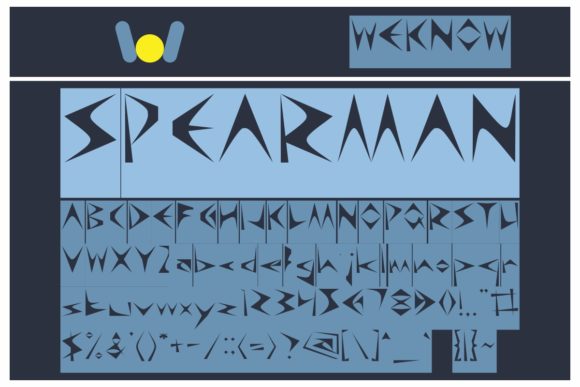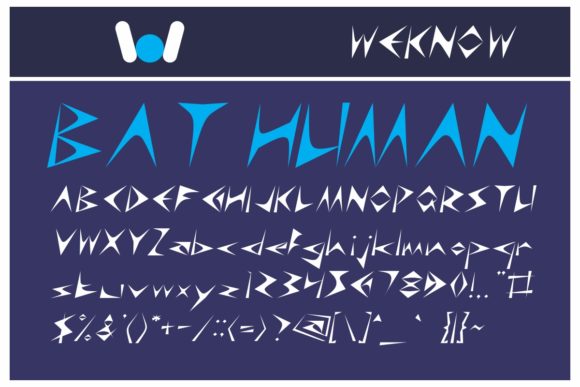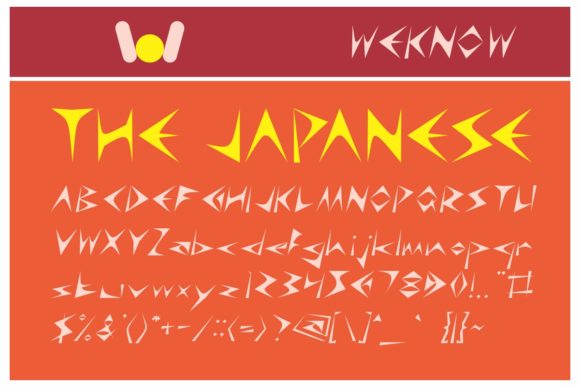
Unleash Your Creativity with Digital Ninja Font
In the world of digital design, fonts play a crucial role in bringing creative ideas to life. Among the numerous fonts available, one that stands out for its unique blend of fun, quirkiness, and authenticity is the Digital Ninja Font. This enchanting display font has the power to transform any creative concept into a true standout, making it a must-have for designers and crafters alike.
The Essence of Digital Ninja Font
Digital Ninja Font embodies the spirit of fun and quirkiness, making it perfect for projects that require a touch of playfulness and modernity. Its design is carefully crafted to provide an authentic feel that resonates with contemporary audiences. Whether you’re working on a branding project, a website, or marketing materials, this font is sure to leave a lasting impression.
Key Features of Digital Ninja Font
- Unique Design: Digital Ninja Font boasts a distinctive design that sets it apart from more traditional fonts. Its characters are carefully designed to convey a sense of modernity and edginess.
- Versatility: This font is highly versatile and can be used across various design projects, from digital media to print materials.
- Easy to Read: Despite its unique design, Digital Ninja Font remains highly legible, making it suitable for use in both headings and body text.
- Customizable: Designers can easily customize the font to fit their project’s specific needs, ensuring a perfect fit for any creative concept.
Applications of Digital Ninja Font
The applications of Digital Ninja Font are vast and varied. Here are a few examples of how designers and crafters can utilize this font:
- Branding: Create memorable brand identities with custom logos, business cards, and letterheads that showcase your brand’s personality.
- Web Design: Enhance user experience with engaging website headers, buttons, and interactive elements that reflect your website’s unique character.
- Marketing Materials: Stand out in a crowded market with eye-catching brochures, flyers, and posters that leverage the font’s quirkiness and charm.
- Crafting: From DIY project labels to handmade product tags, Digital Ninja Font can add a personalized touch to your crafts.
Tips for Using Digital Ninja Font Effectively
To maximize the impact of Digital Ninja Font, consider the following tips:
- Mix and Match: Combine Digital Ninja Font with complementary fonts to create visual interest and hierarchy in your designs.
- Play with Sizes: Experiment with different font sizes to emphasize key messages and create a dynamic visual flow.
- Color Matters: Choose colors that align with your brand or project’s theme to ensure consistency and enhance the overall aesthetic.
Digital Ninja Font is more than just a font – it’s a tool for creative expression. Its unique blend of fun, quirkiness, and authenticity makes it an invaluable asset for designers and crafters looking to bring their ideas to life. By incorporating Digital Ninja Font into your projects, you can ensure that your work stands out in a crowded digital landscape. So, why settle for ordinary when you can create something extraordinary with Digital Ninja Font?
In the realm of digital design, having the right tools at your disposal can make all the difference. Digital Ninja Font is a powerful tool that can help you unlock new levels of creativity and bring your projects to life. With its unique design, versatility, and ease of use, it’s an excellent addition to any designer’s or crafter’s toolkit. So, embrace your inner digital ninja and let your creativity soar with Digital Ninja Font!